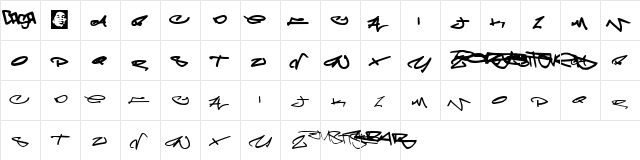
Meglaphoid Regular
Design Context for Meglaphoid Typeface
Meglaphoid is a composed and adaptable typeface that performs quietly and consistently across a wide range of design contexts.